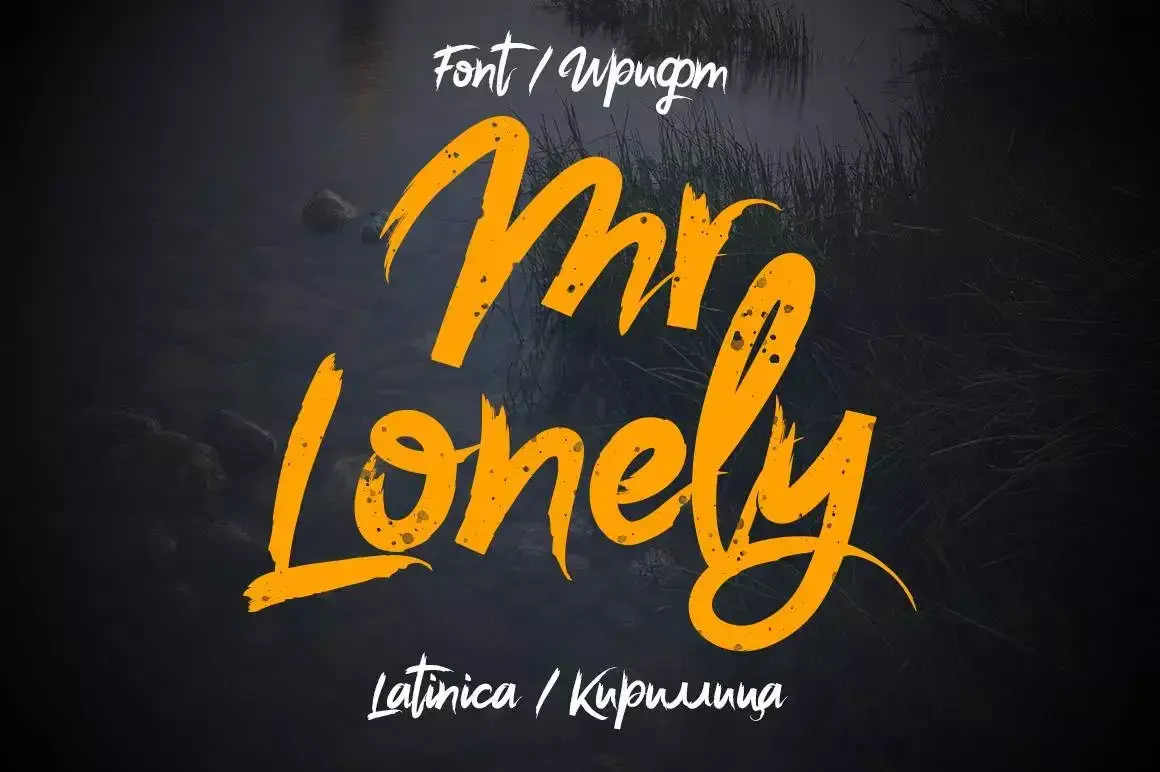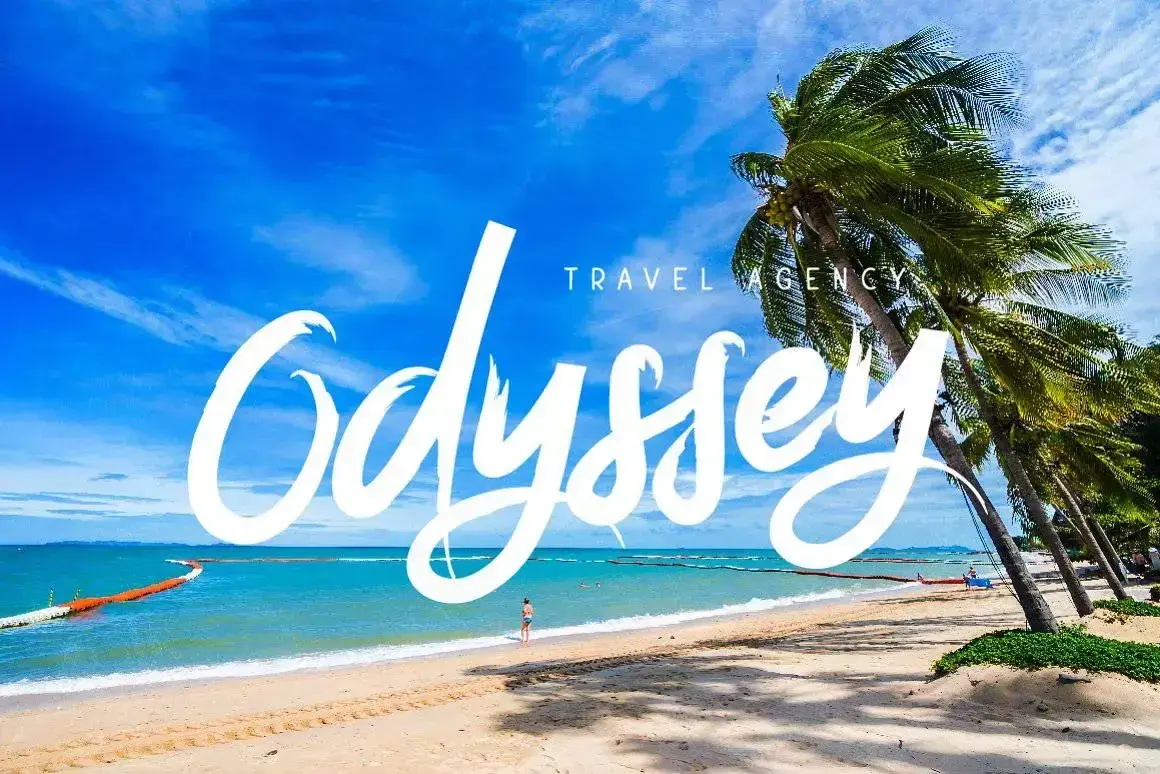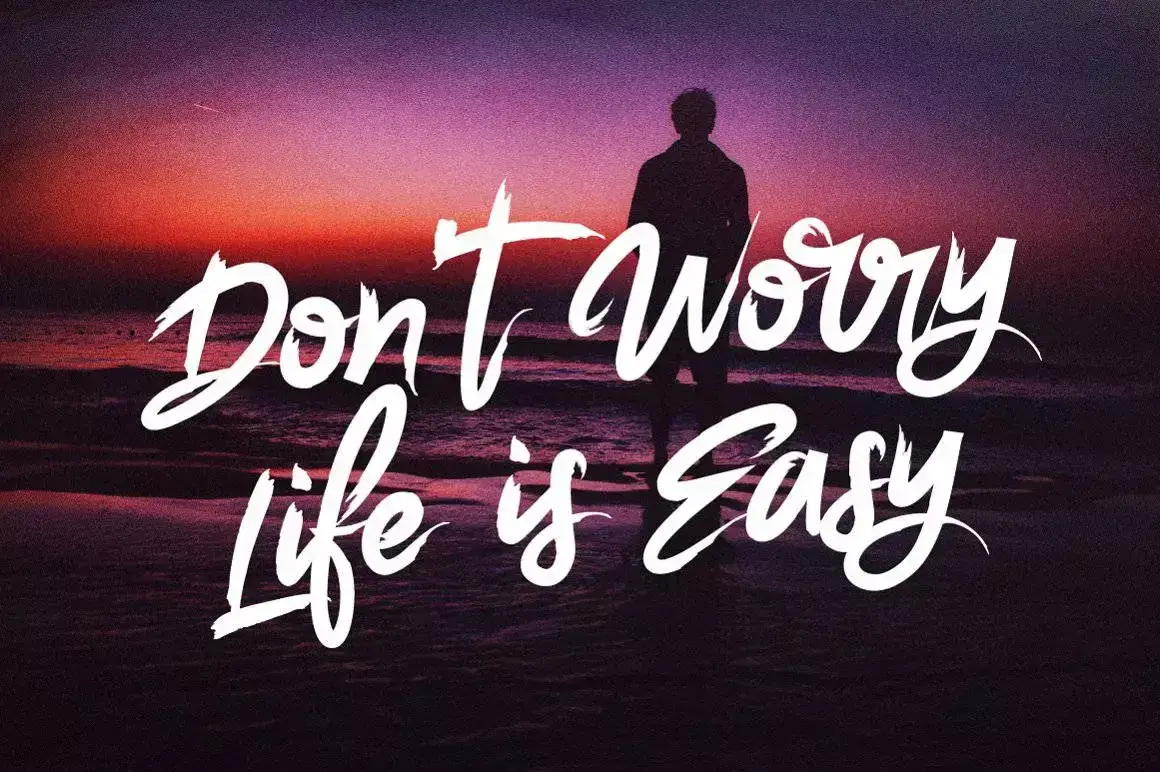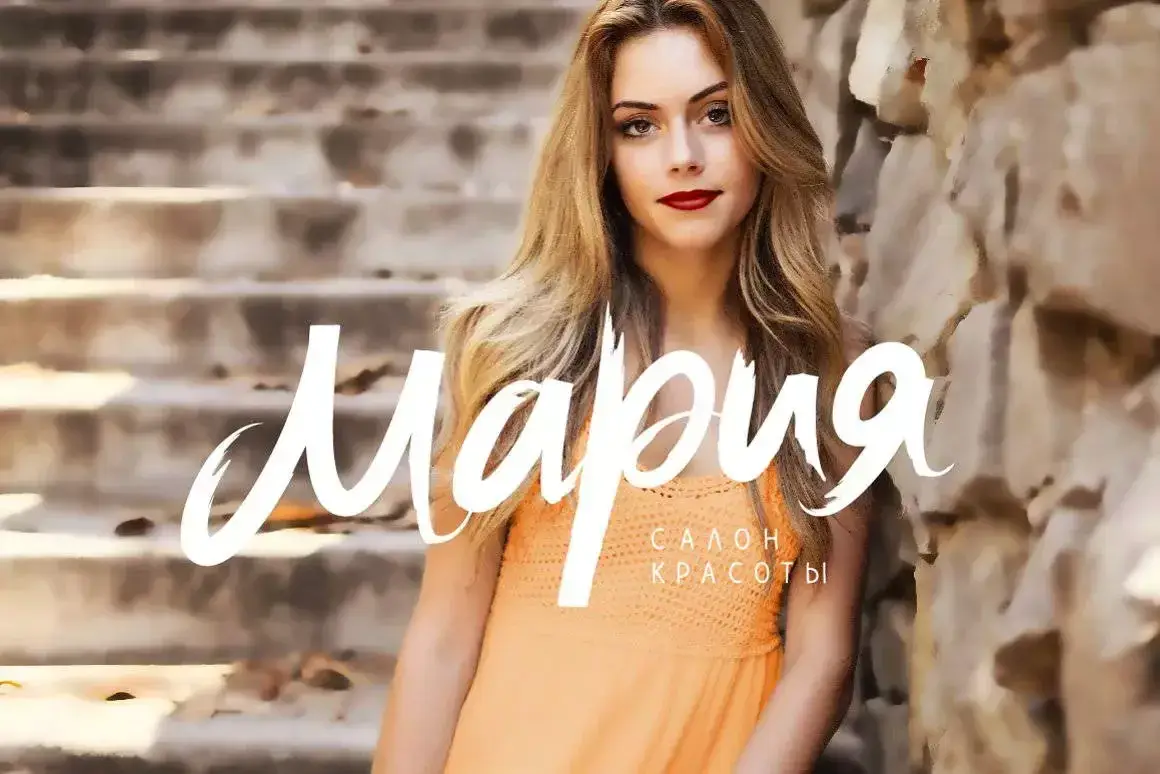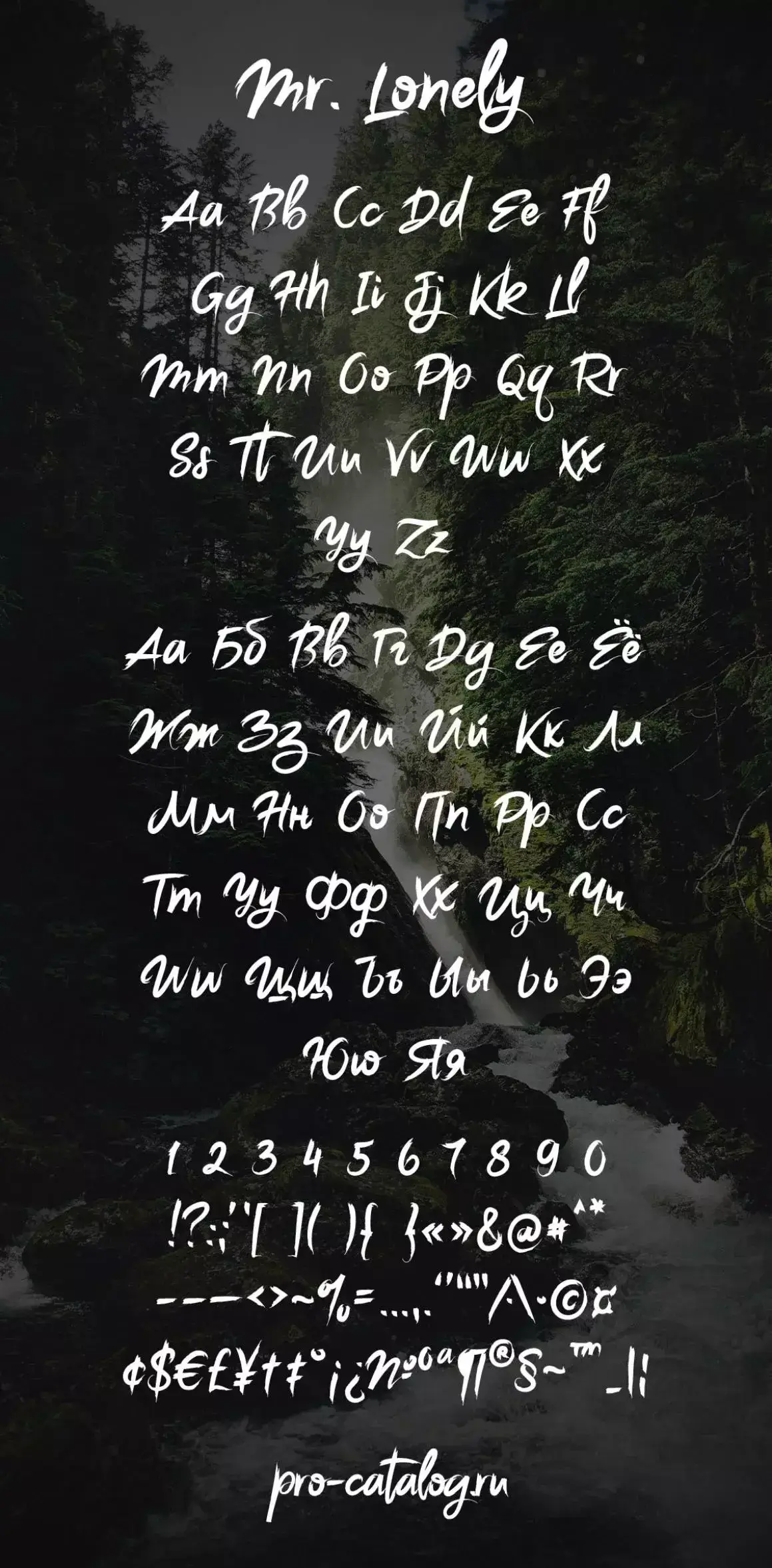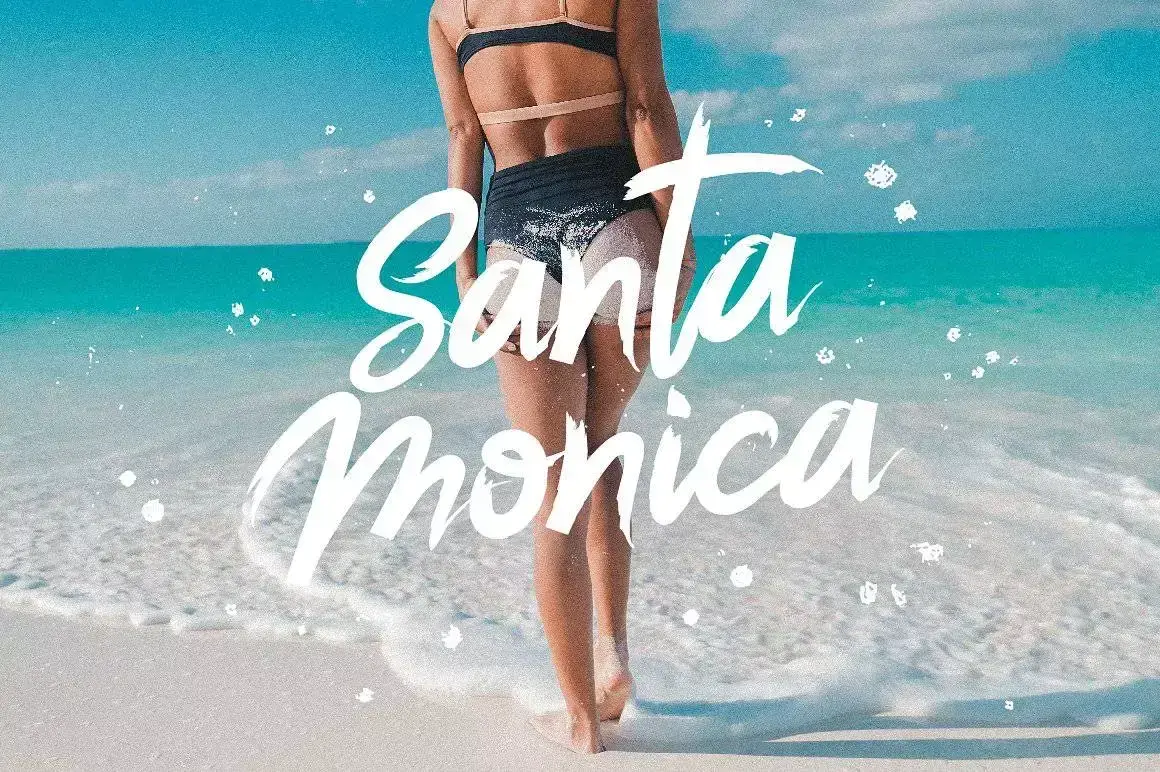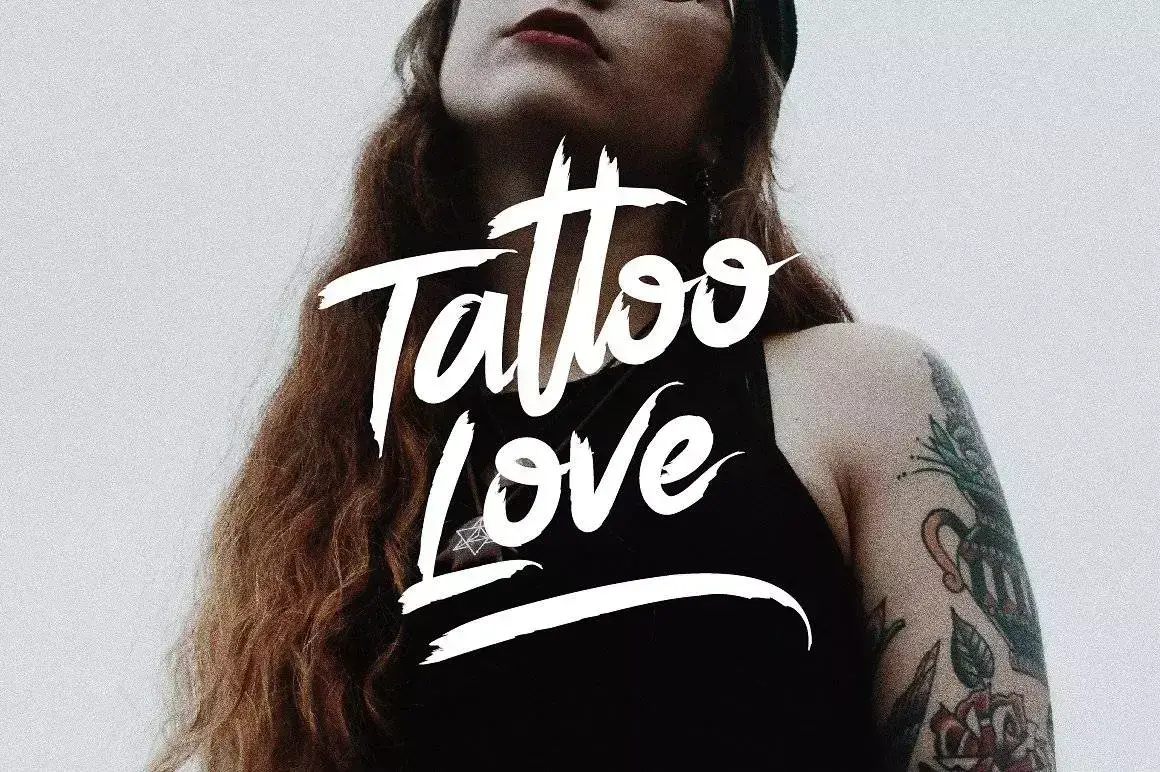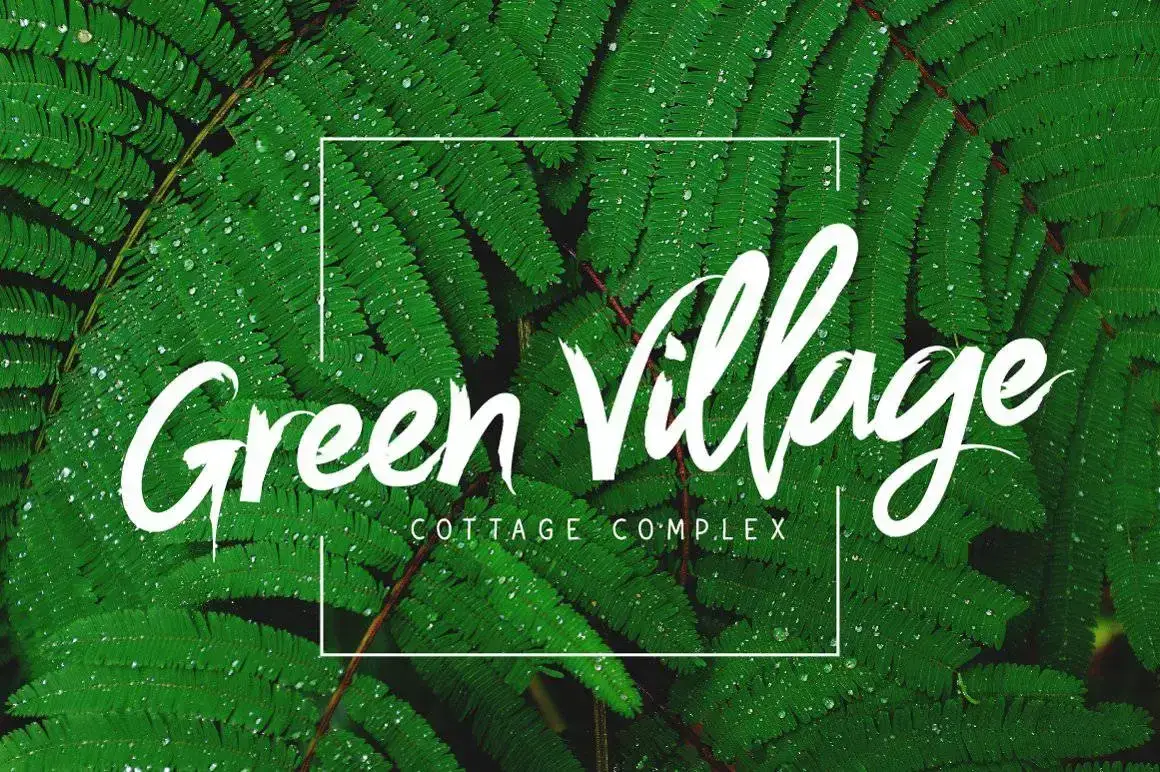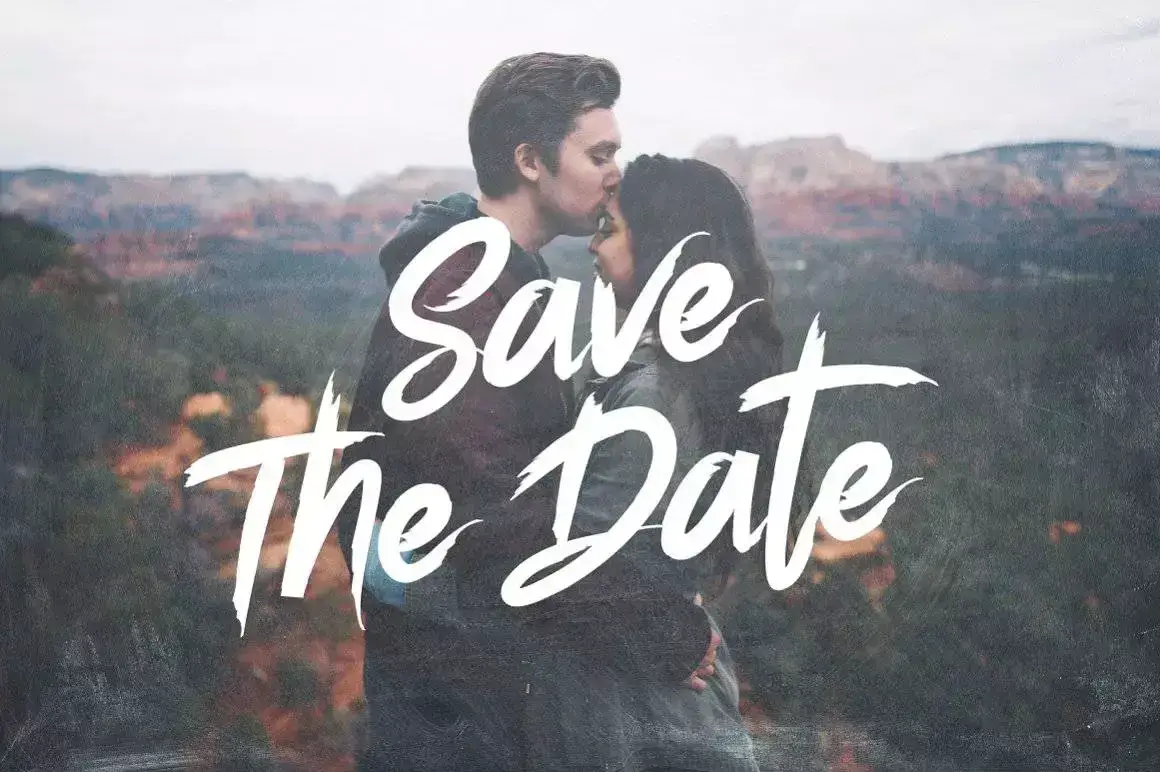
Mr. Lonely Font – A Unique Handmade Brush Typeface
Are you searching for a font that adds a personal touch to your designs? Look no further than Mr. Lonely Font. This handmade brush font is designed to bring warmth and character to your projects, making it the perfect choice for creative professionals and hobbyists alike.
Mr. Lonely is not just a font; it’s an artistic expression. With its charming brush strokes, it captures the essence of handwritten typography. This font includes a complete set of lowercase and uppercase letters, ensuring that you can convey your message with style. Additionally, it features a wide range of punctuation, numerals, and ligatures, as well as support for Cyrillic characters and multilingual options.
- ✅ Handmade Design → Adds a personal and artistic touch to your projects.
- ✅ Full Character Set → Includes both uppercase and lowercase letters for versatile use.
- ✅ Extensive Punctuation and Numerals → Perfect for creating detailed text layouts.
- ✅ Ligatures Included → Enhances the flow of your typography for a more polished look.
- ✅ Multilingual Support → Ideal for global projects, accommodating various languages.
- ✅ Cyrillic Characters → Expands usability for diverse audiences.
Mr. Lonely Font stands out due to its unique handmade quality that resonates with authenticity. Whether you are designing a logo, crafting invitations, or developing marketing materials, this font elevates your work with its artistic flair. Trusted by designers worldwide, Mr. Lonely brings a touch of creativity that can transform any project.